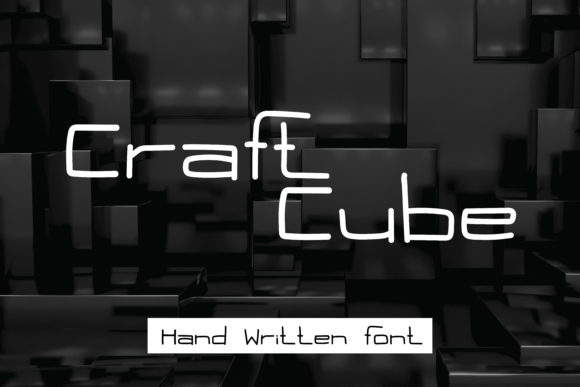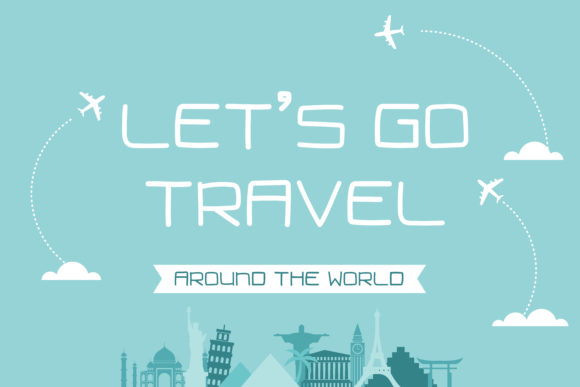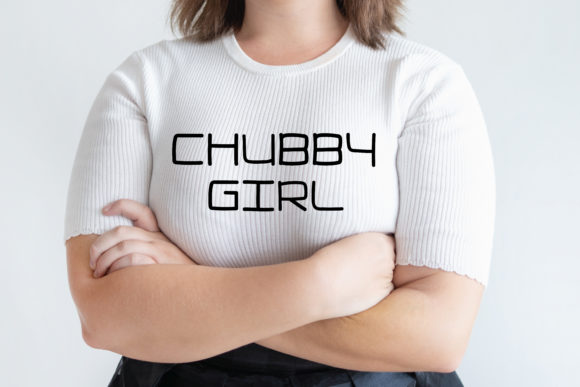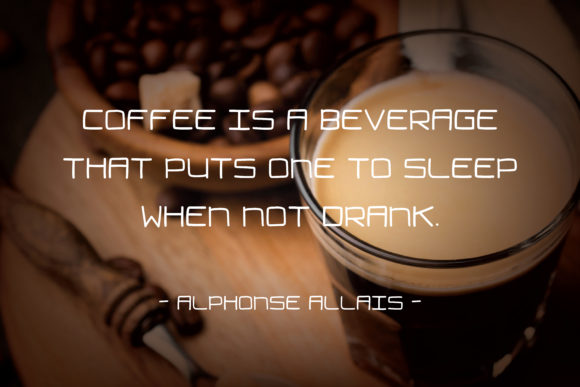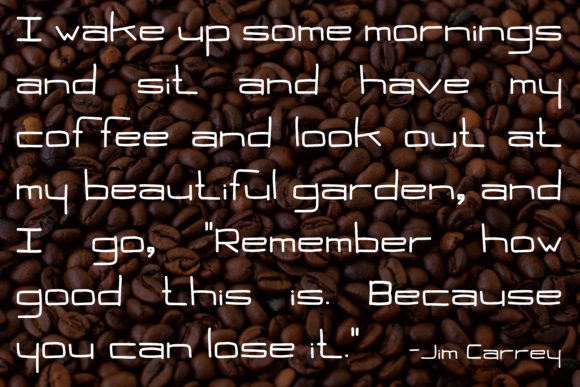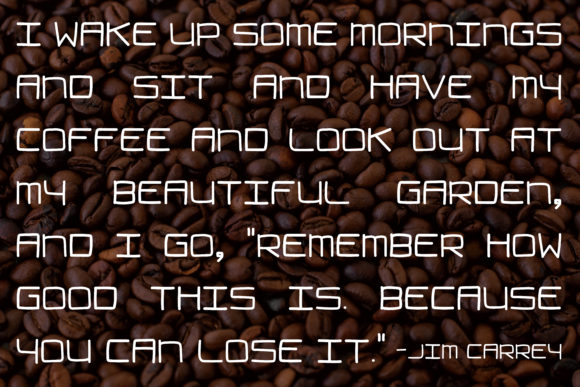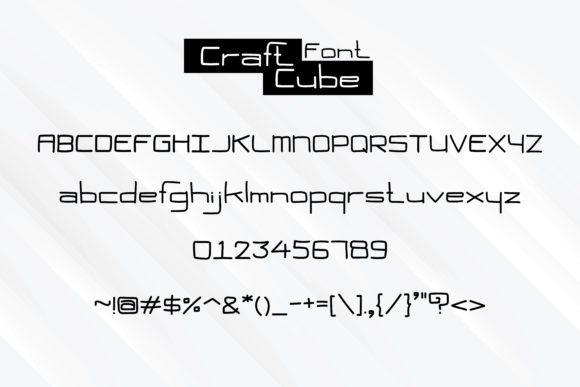
Craft Cube Font
About Craft Cube Font
Introducing “Craft Cube,” a simple and neat lettered handwritten font that is sure to spark your creativity. With its natural and unique style, this font is a perfect fit for a wide range of designs, and the possibilities are only limited by your imagination.
“Craft Cube” is crafted with care, giving each letter a sense of authenticity and character. Its clean and minimalist design allows it to seamlessly blend into various projects, adding a touch of elegance and charm to any text.
The versatility of “Craft Cube” is one of its standout features. Whether you’re creating social media graphics, branding materials, invitations, quotes, or any other design, this font will effortlessly elevate your creations to a new level of sophistication.
The neat and tidy appearance of “Craft Cube” makes it suitable for both formal and casual projects. Its simplicity and clean lines give it a timeless quality, ensuring that it remains relevant and stylish for years to come.
With “Craft Cube” in your font collection, you’ll have a reliable tool at your disposal for any creative endeavor. Its natural and handwritten feel brings a personal touch to your designs, making them more engaging and inviting to your audience.
As you work with “Craft Cube,” you’ll find that it effortlessly adapts to your creative vision. Whether you’re designing for a wedding, a product launch, or a social media campaign, this font will be a trusty companion that helps you achieve your desired look and feel.
So, embrace the simplicity and elegance of “Craft Cube” and let your imagination run wild. Use it to create stunning designs that leave a lasting impact and resonate with your audience. This font is a versatile tool that empowers you to express your ideas and create something truly unique.
The possibilities are endless with “Craft Cube” in your toolkit. Its natural and neat style is a blank canvas waiting for your creativity to transform it into something remarkable. So, don’t hold back, let your imagination soar, and use “Craft Cube” to craft designs that captivate and delight.